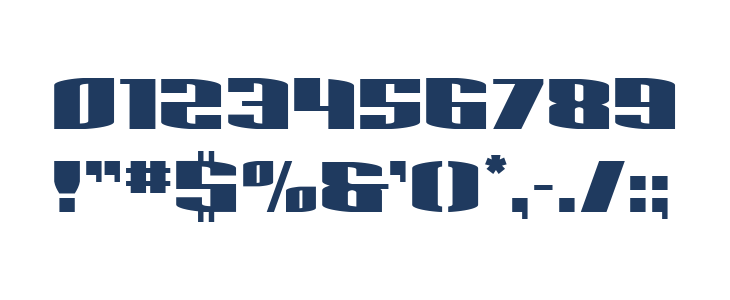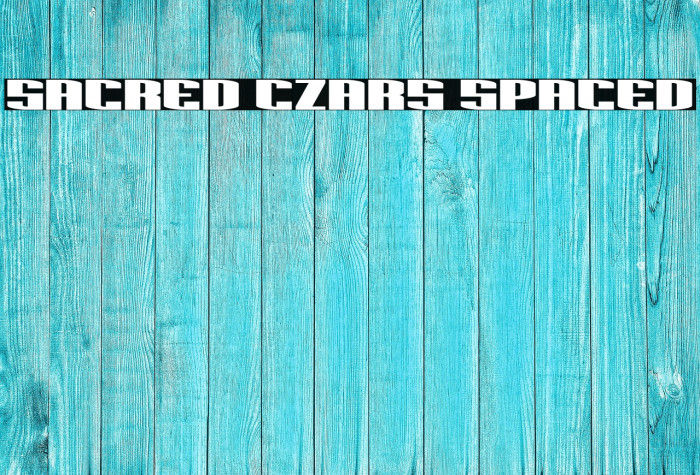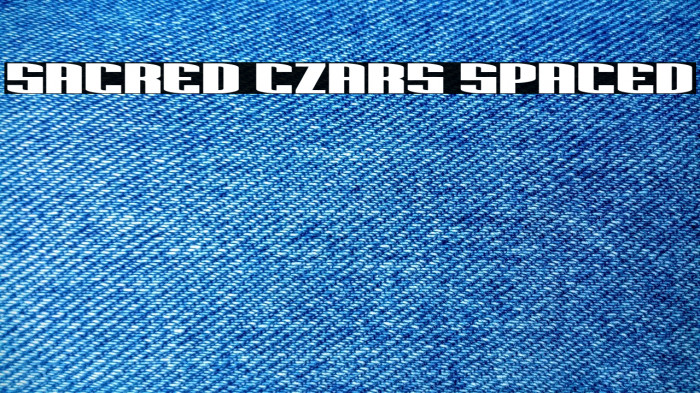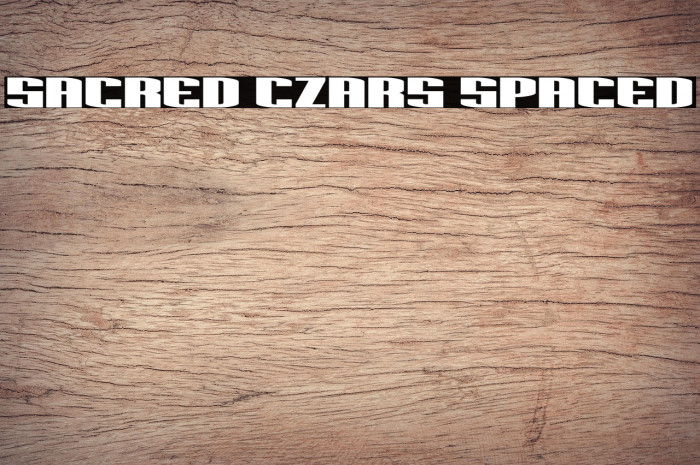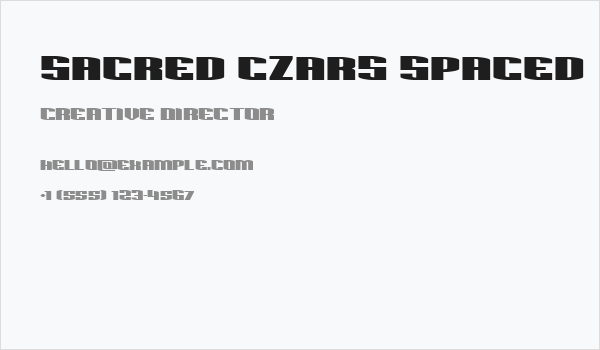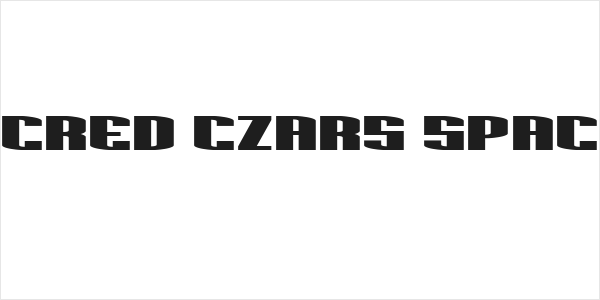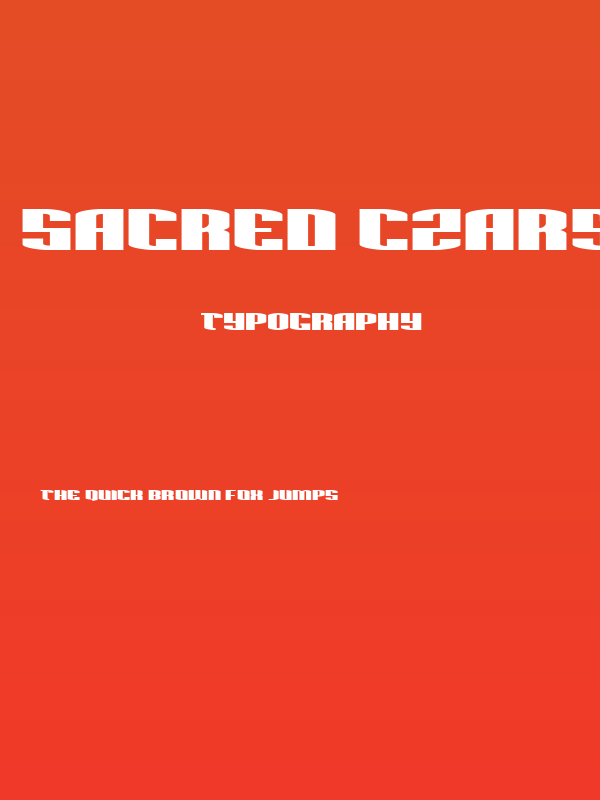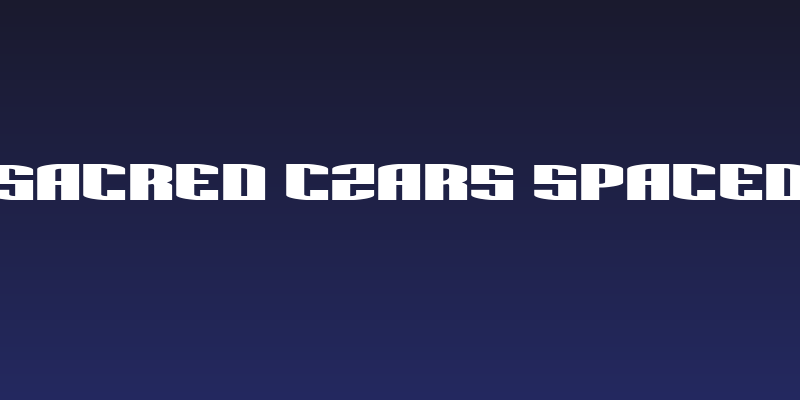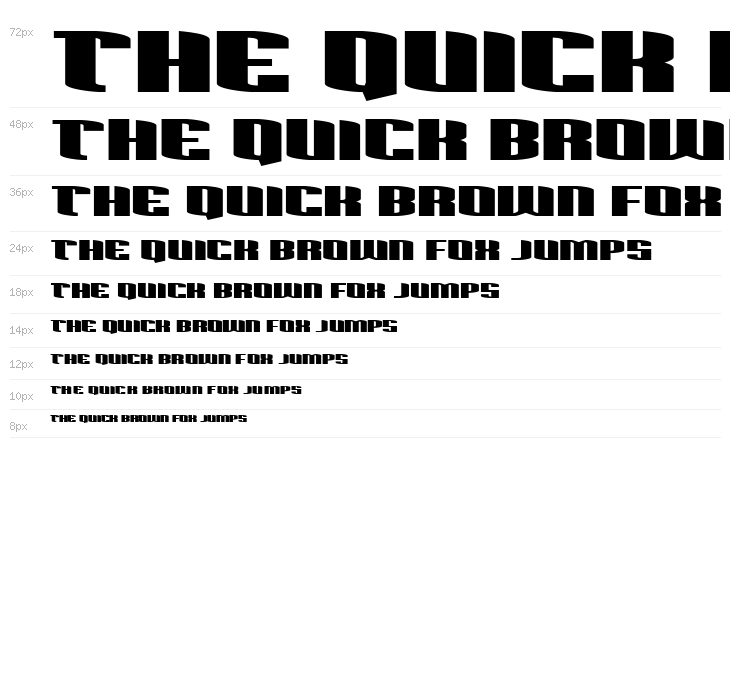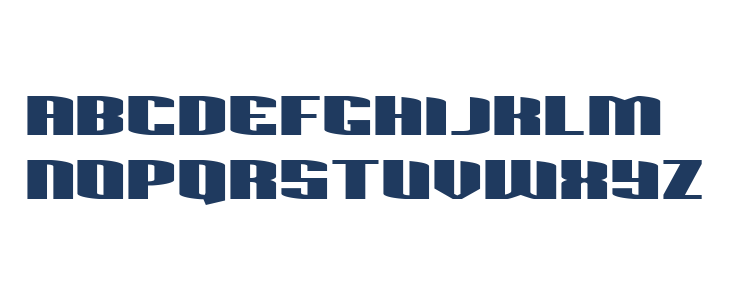
Sacred Czars Spaced Font
Sacred Czars Spaced Description
This font features a bold and striking design with a strong geometric influence. The characters are wide and blocky, creating a powerful visual impact. The uppercase letters are particularly prominent, with a uniform height and a consistent width that gives the font a cohesive appearance. The numbers and special characters maintain the same bold style, ensuring a consistent look across all text elements. The font's design is reminiscent of industrial or futuristic themes, making it suitable for projects that require a modern and assertive aesthetic.